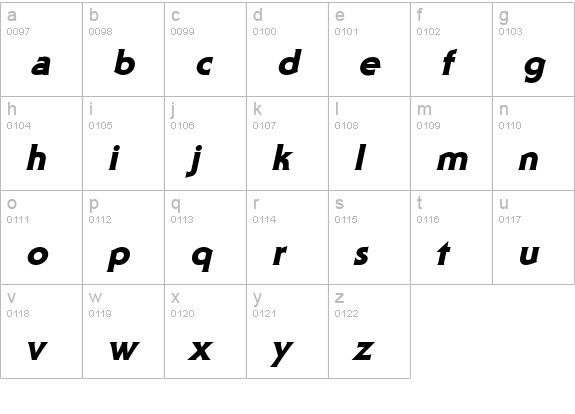
Staid Gothic Heavy Italic is a heavy, high-impact, italic variant in the Staid typeface family \xE2\x80\x94 well suited to high-impact headlines, posters, and display advertising.
Introducing the captivating Staid Gothic Heavy Italic font, a magnificent combination of boldness and elegance that will take your designs to new heights. With its strong and commanding presence, this typeface is perfect for making a bold statement that demands attention. Staid Gothic Heavy Italic boasts a unique blend of gothic and modern influences, creating a distinct aesthetic that is both timeless and contemporary. Its sharp, angled letterforms exude confidence and strength, while the delicate italic slant adds a touch of sophistication and allure. This font's versatility knows no bounds, making it a perfect choice for a wide range of projects. Whether you're designing eye-catching logos, powerful headlines, attention-grabbing posters, or edgy packaging, Staid Gothic Heavy Italic will effortlessly elevate your work to the next level. As a bonus, this remarkable font is freely available to download at FontsMarket.com. Yes, you read that right - you can now access this exceptional typeface without any cost. This generous offer allows designers, artists, and creatives of all kinds to explore the endless possibilities that Staid Gothic Heavy Italic has to offer, without breaking the bank. So why wait? Embrace the boldness and elegance of Staid Gothic Heavy Italic and discover a world of design possibilities. Download it for free today at FontsMarket.com and let your creativity soar to new heights.